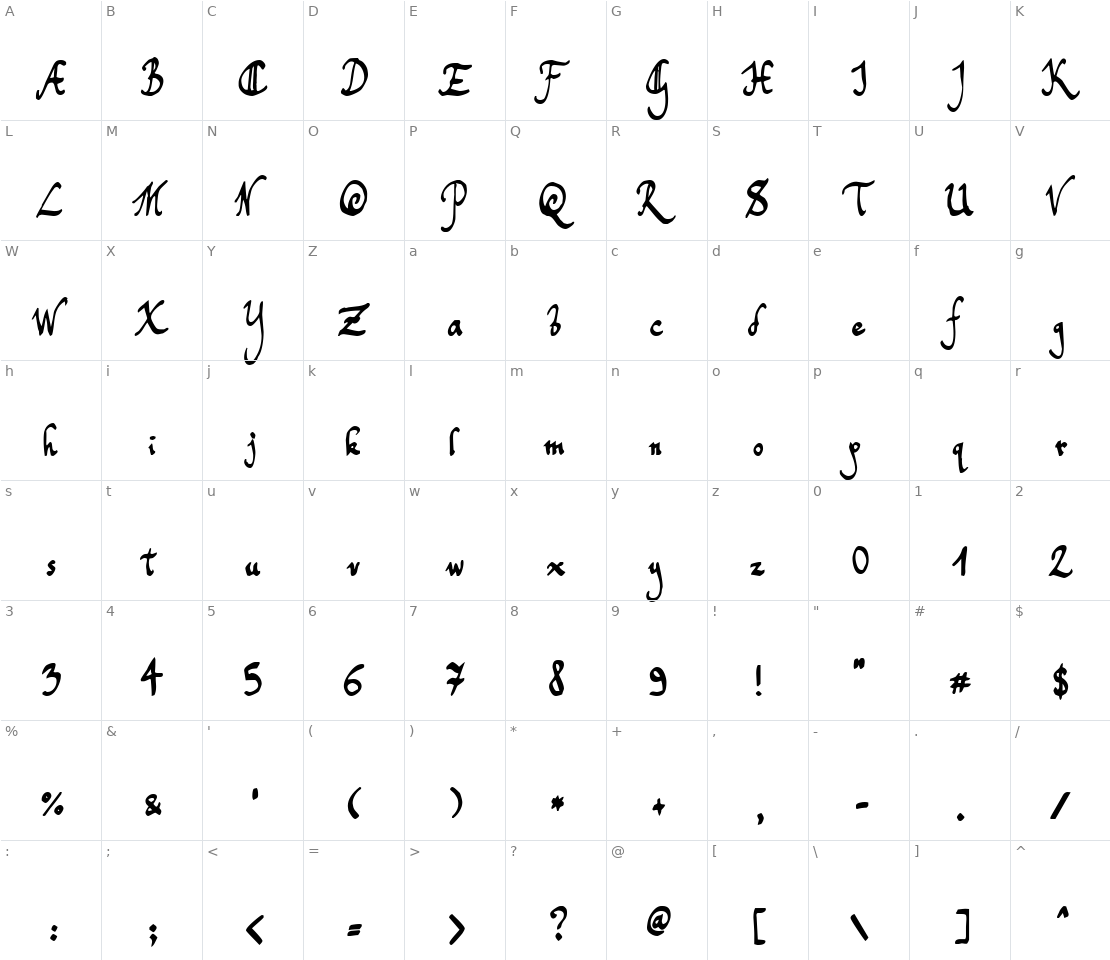
Toms Handwriting
by OMEGA Font Labs
Toms Handwriting from OMEGA Font Labs looks like it was lifted directly from someone's notebook, with the kind of natural inconsistency and pen pressure variation that's hard to fake. The letterforms are informal and slightly irregular, carrying a genuine personal quality rather than the overly smoothed look of many handwritten fonts. Best for notes, personal projects, invitations, or anywhere you want type that feels like real handwriting on paper.